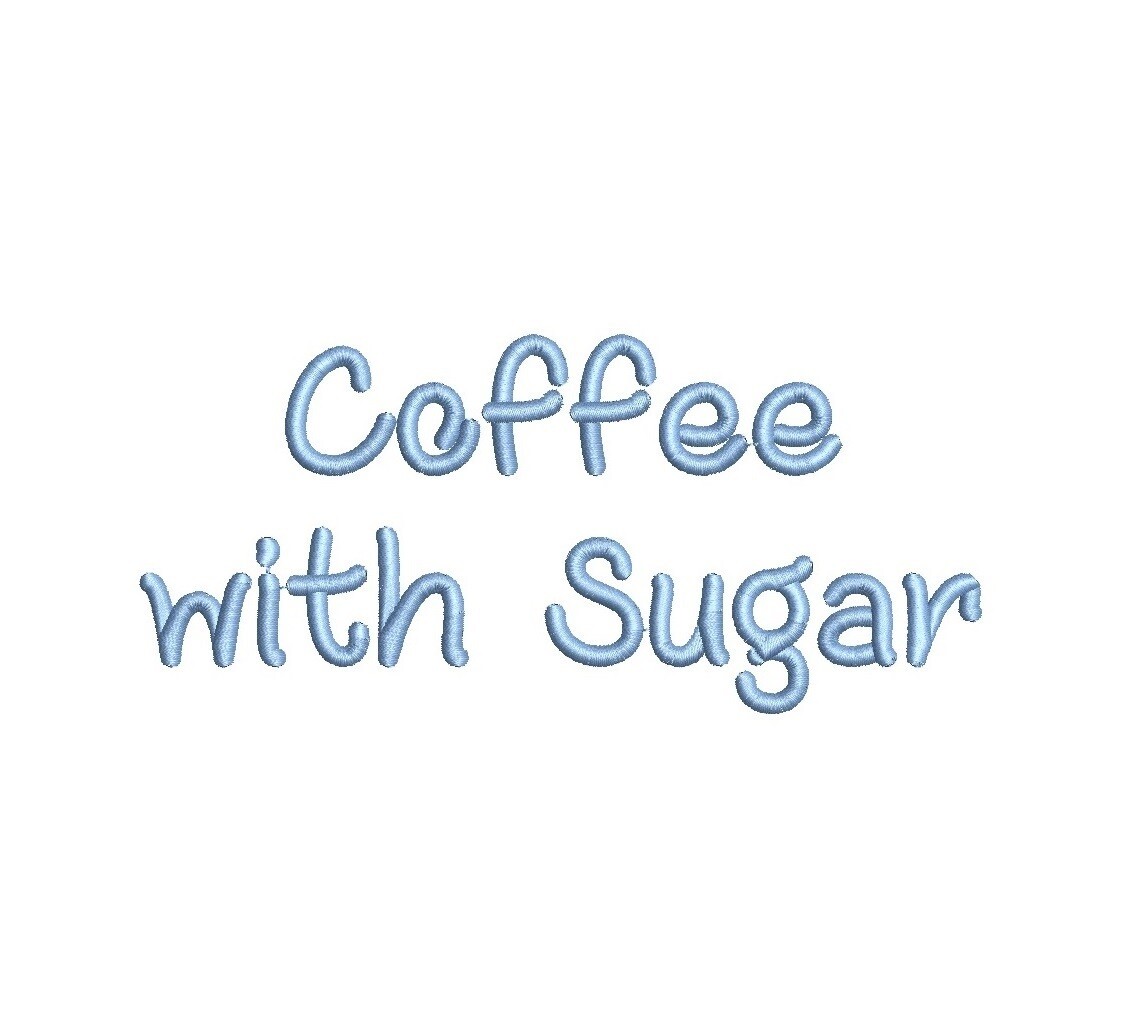
Indulge in the delightful flavor of Coffee with Sugar Regular ESA font, a perfect choice for your design endeavors. This charming typeface ensures seamless compatibility with Wilcom Studio e4.5.6 and Hatch 3 versions and above. Crafted with meticulous precision, its elegant letterforms and sweet elements infuse your projects with a cozy warmth. Elevate your designs with Coffee with Sugar Regular ESA's versatility, ideal for coffee shop branding, posters, quotes, and more. Let your creativity flow as you blend richness and sweetness with this font, tailored for Wilcom Studio e4.5.6 and Hatch 3 versions and beyond. Savor the essence of creativity with Coffee with Sugar ESA font.